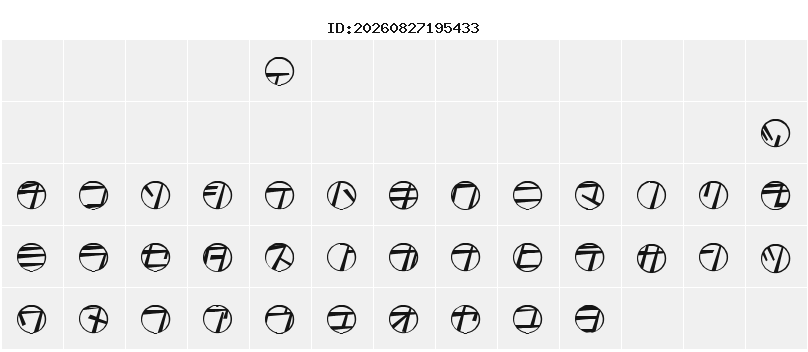
tamio qn6 Preview
About tamio qn6.ttf
tamio qn6.ttf is a modern, elegant sans-serif font designed for ultimate readability and visual harmony. Perfect for branding, headlines, web design, and print materials.